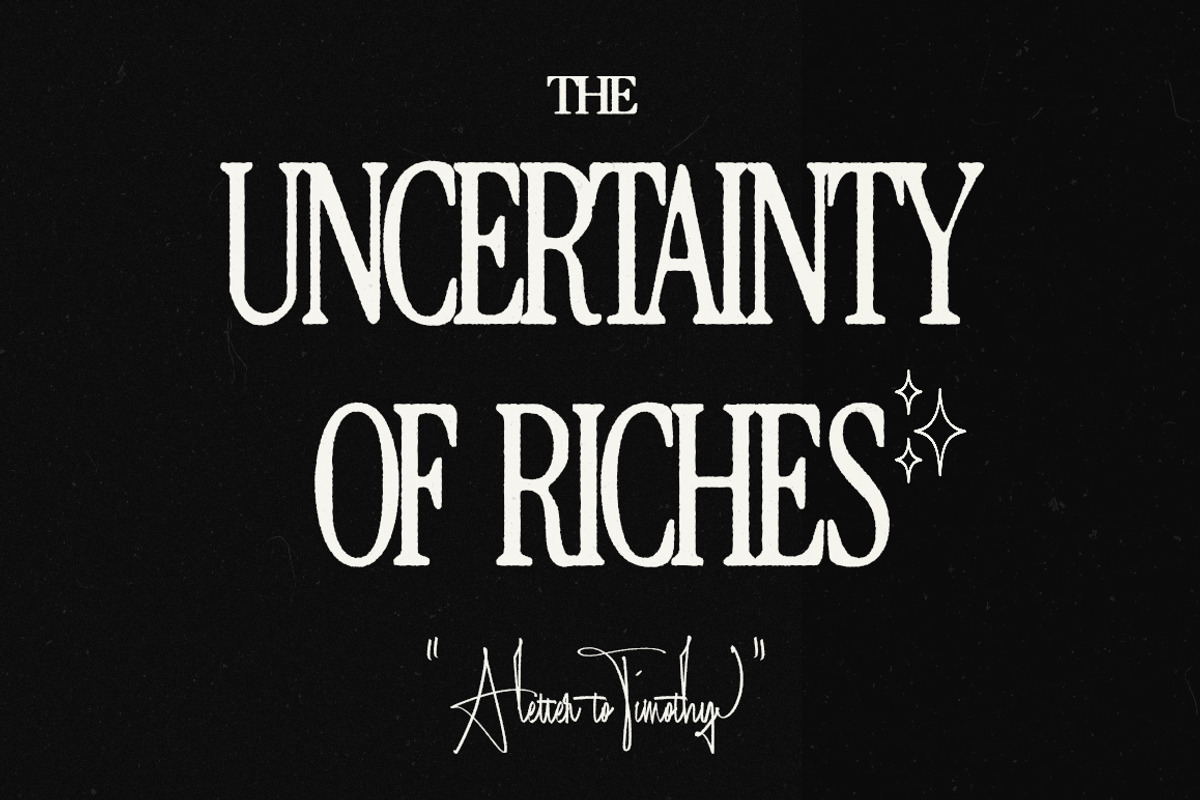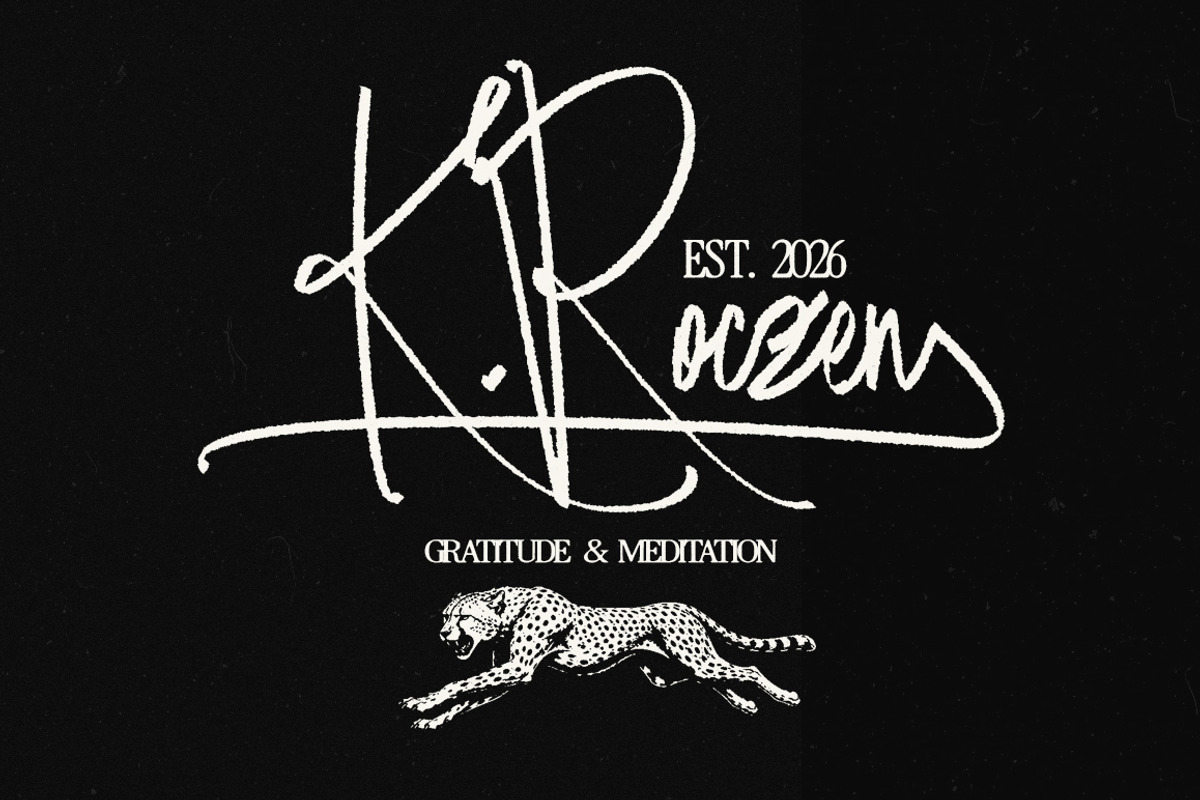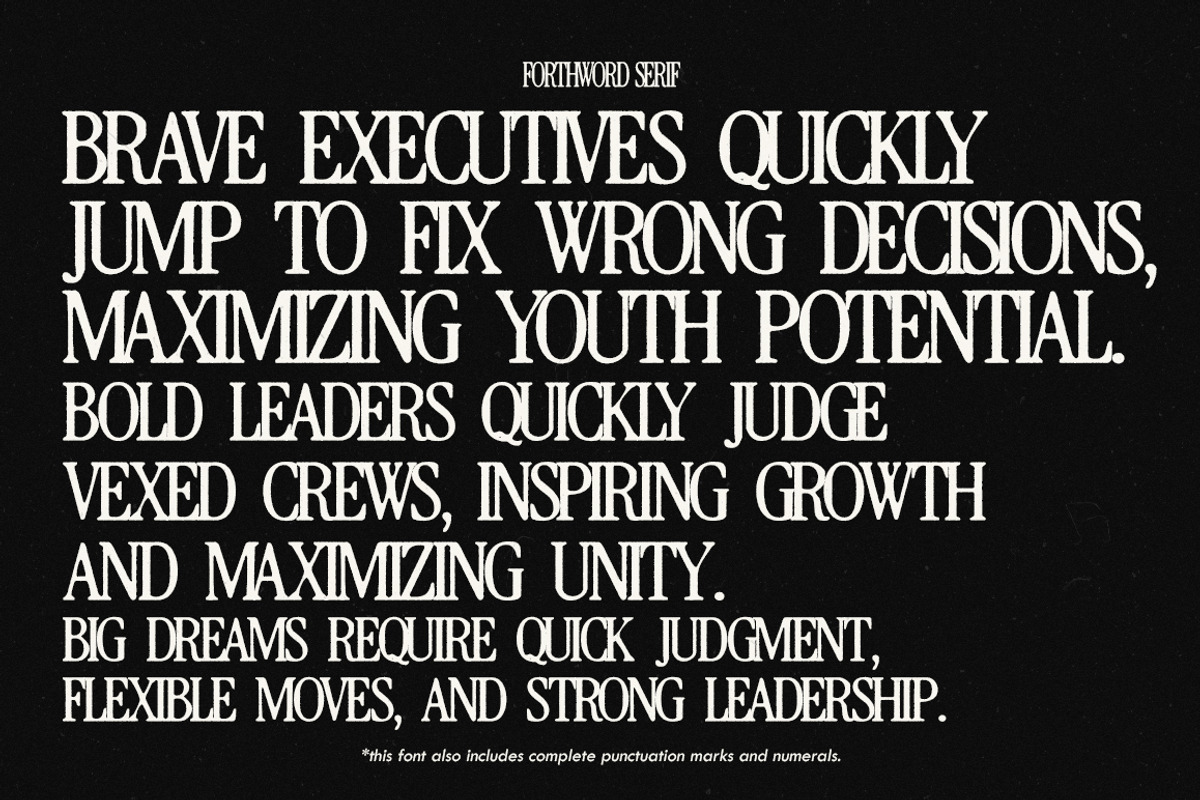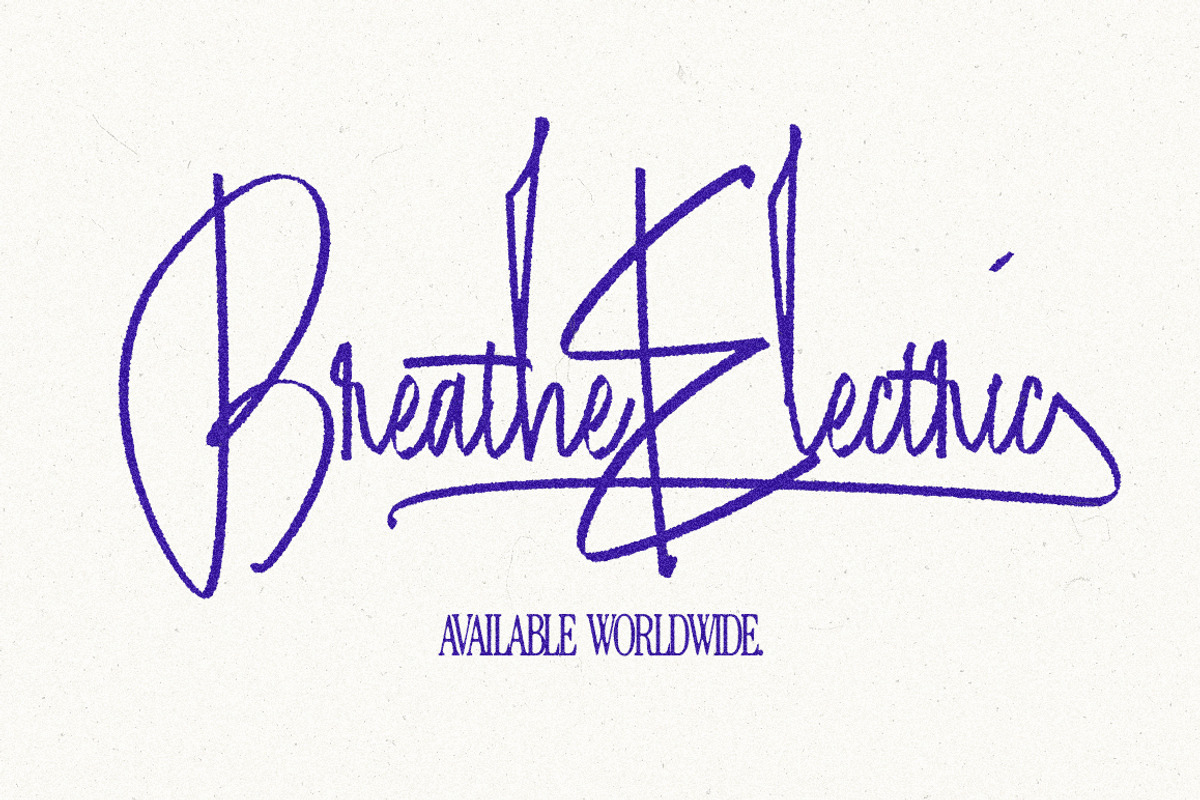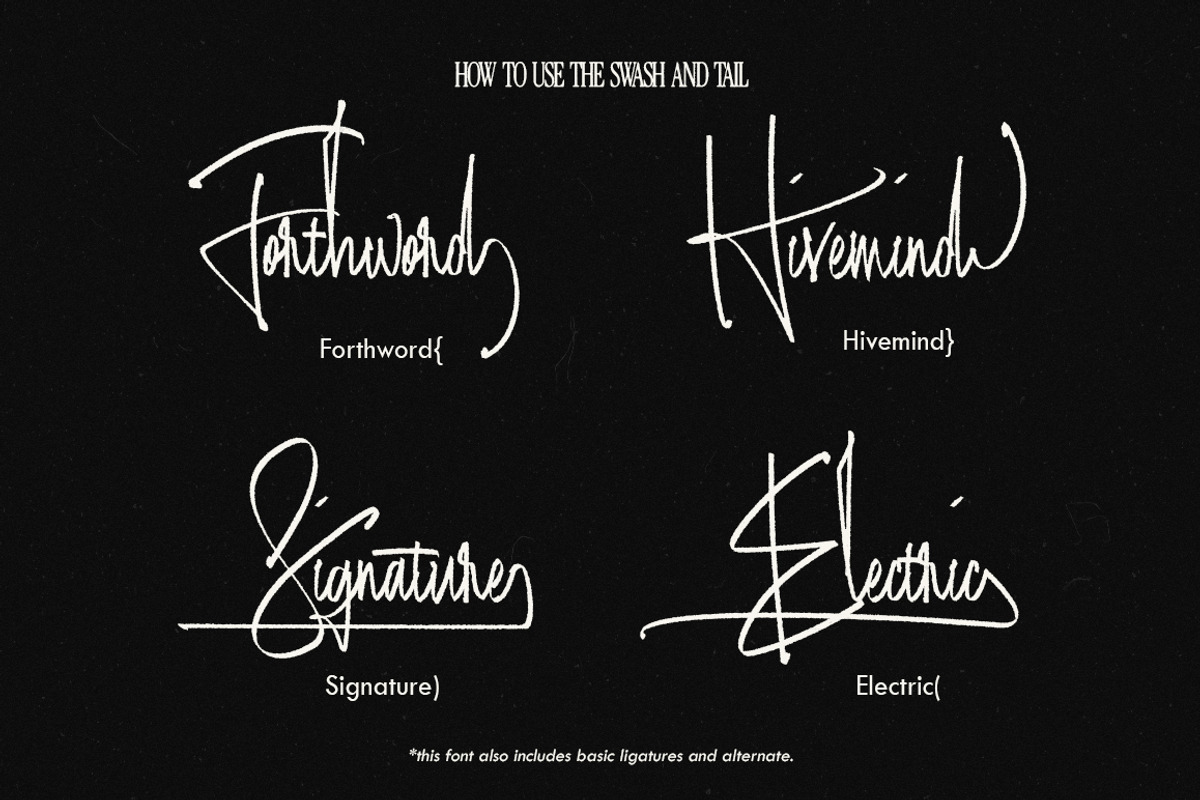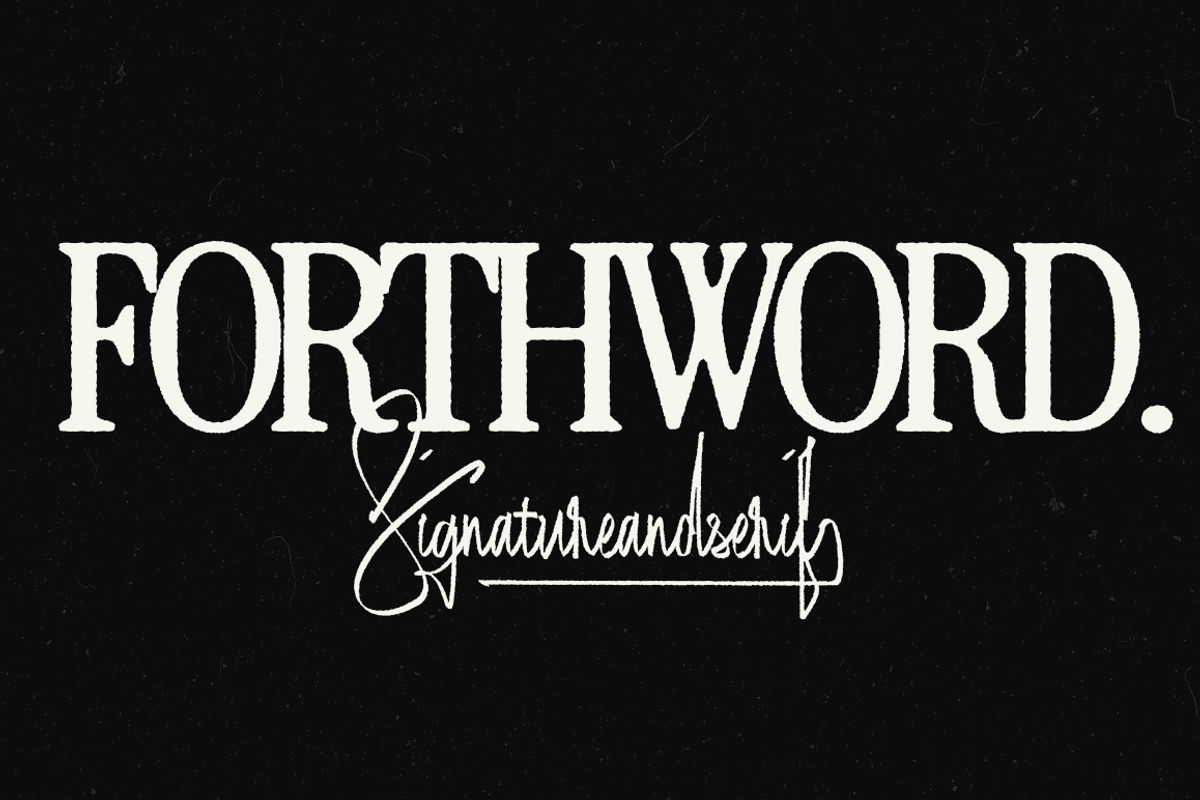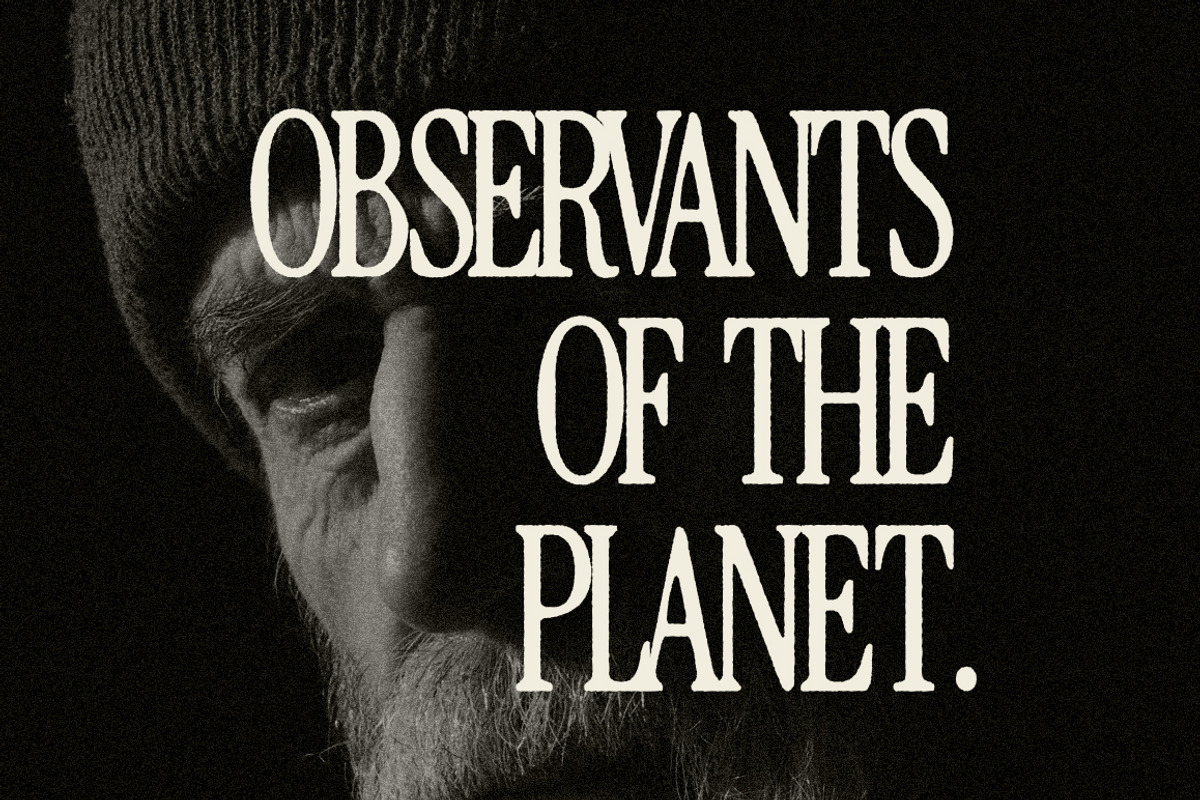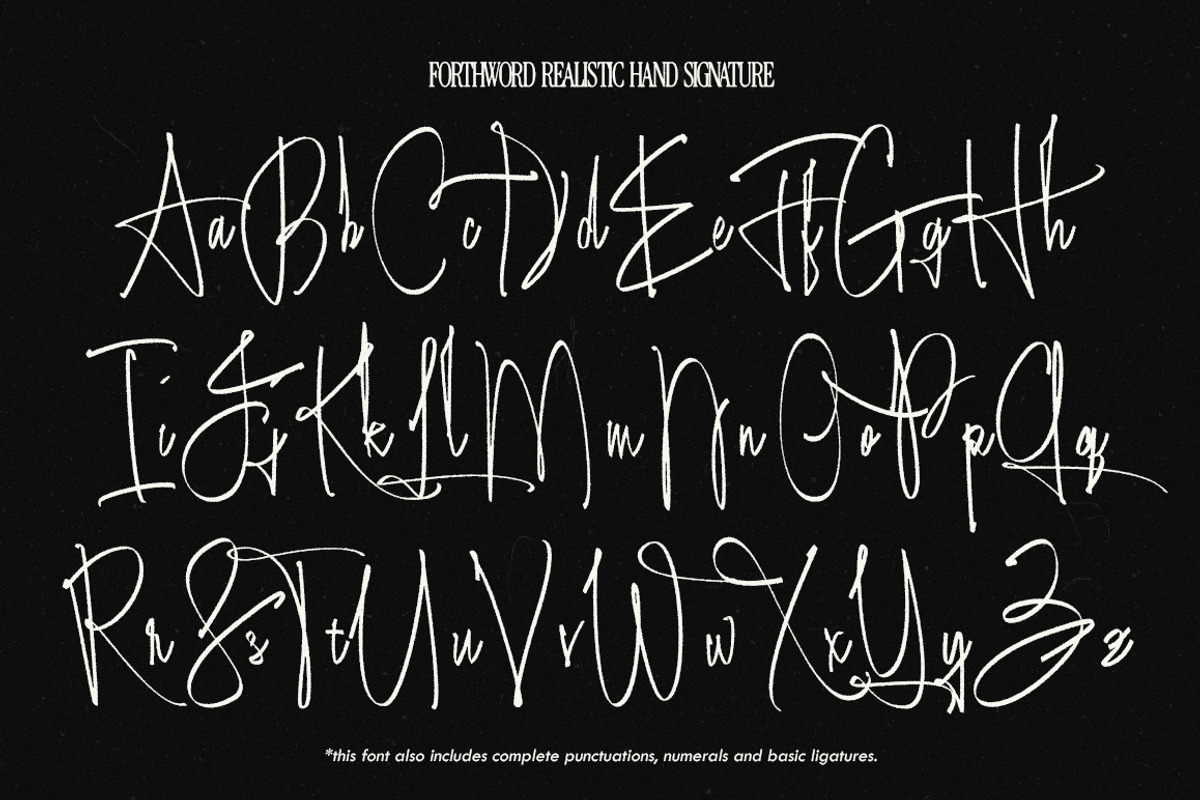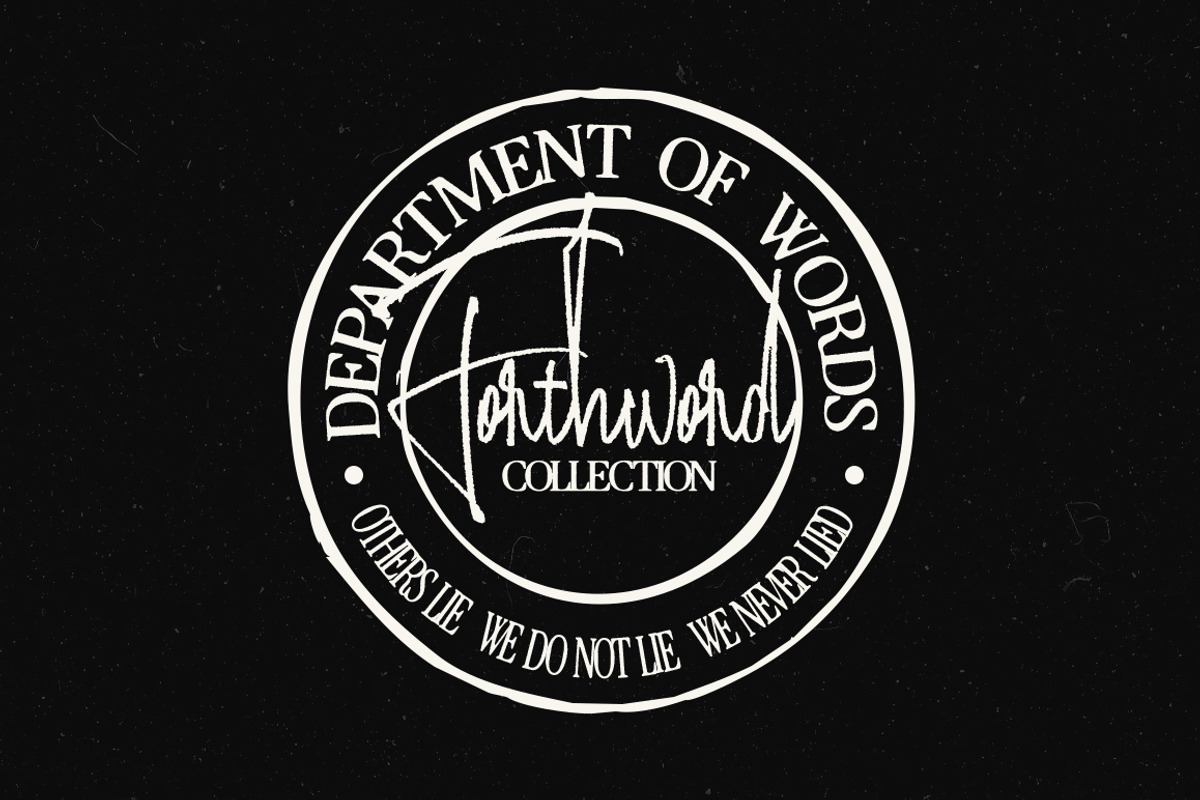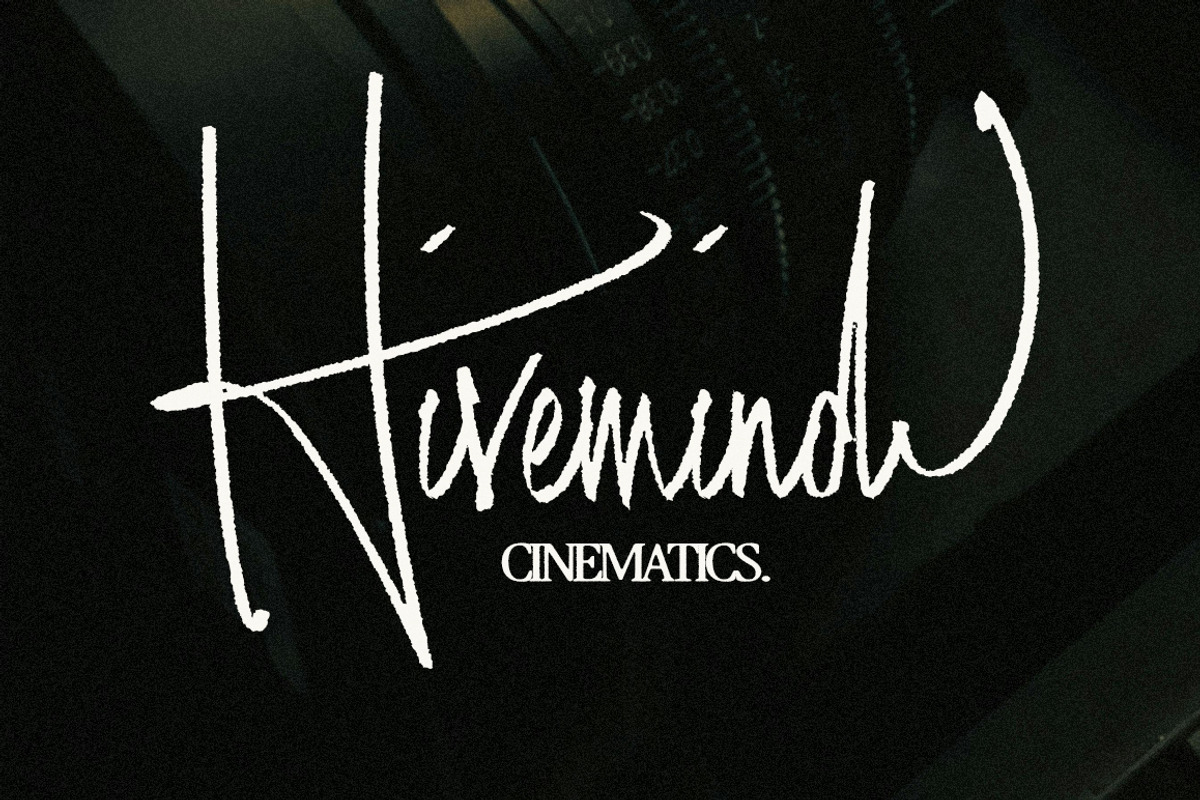
Forthword Signature & Serif
The Forthword Signature & Serif is a collection of fonts that aims to provide visual impact in the most organic and harmonious style. This signature and serif duo is mainly inspired by old scrolls with handwritten letters. With that in mind, we added a refreshed modern digital twist and now you can overlay it over your reels and digital projects.
Forthword Serif has that tight spacing and kerning and still retains readability. It gives a very strong appeal to logos, headlines and book covers. This serif comes in 3 different variations - Regular, Extended and Compressed.
Forthword Signature is where we prioritized uniqueness over generic handlettered glyphs. The capitals are 80% larger than the lowercase so it is practical to use this font for your initials. In trying to achieve realistic human signature, we added long swashes and short tails you can use in the end letter of your name.